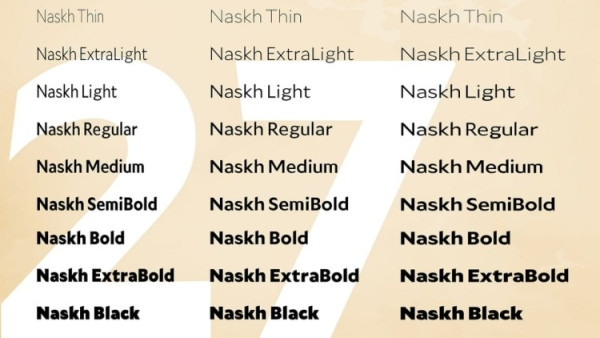
Sarmady Font
Sarmady Font is the modern version of the old Arabic script “Naskh”, a robust modern typeface that combines the sans and the “Naskh” into one strong type family with 9 different weights starting from thin to black with its all italic options.
Sarmady combines more than 50 languages varying between Urdu, Persian, Spanish, Turkish, .. etc, and all can be sued for both digital and offline applications.